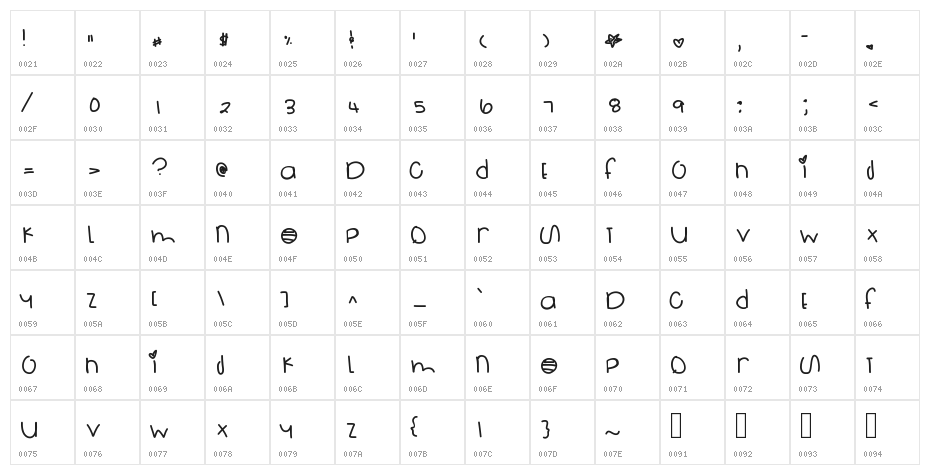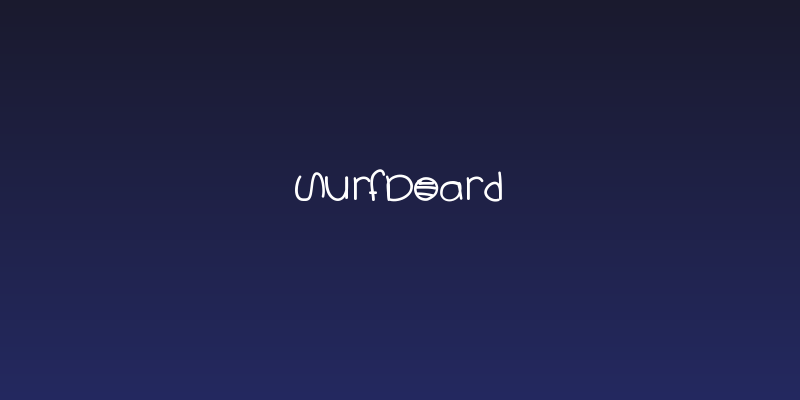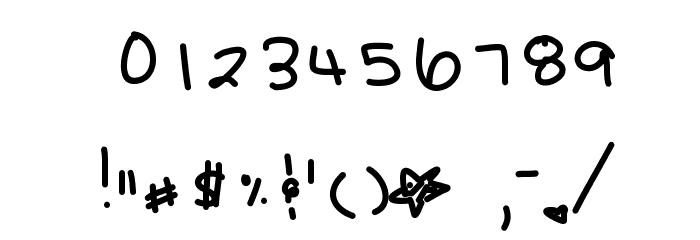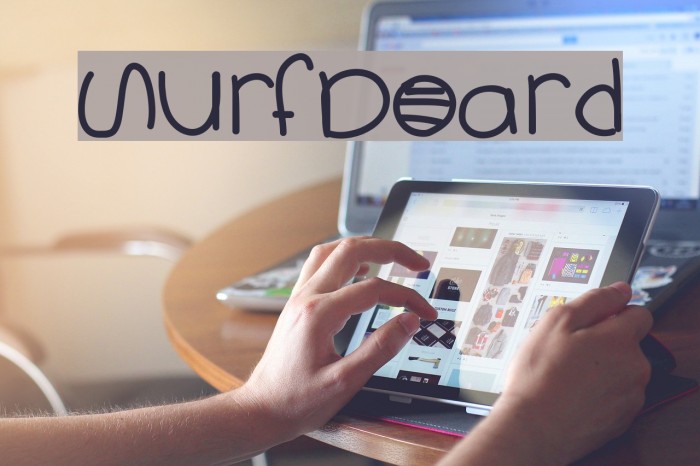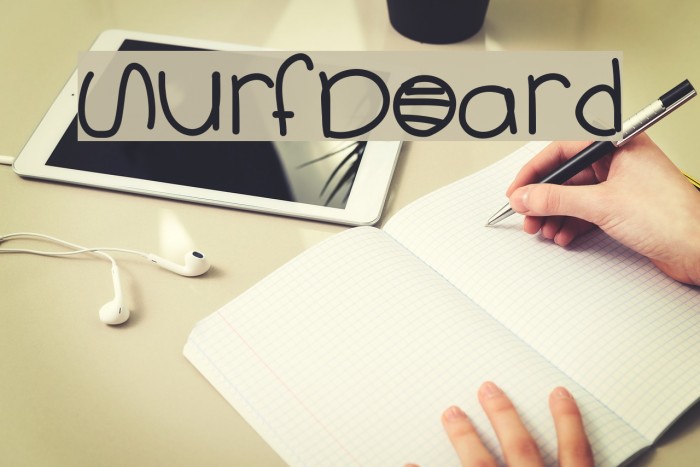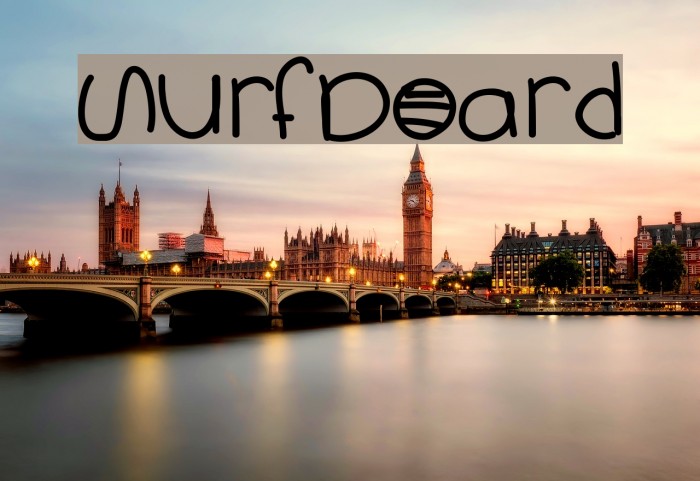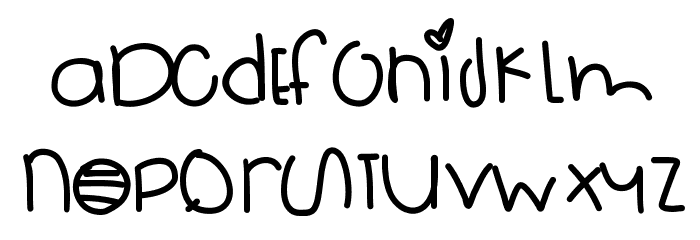
SurfBoard Font
SurfBoard Description
This playful and whimsical font features a handwritten style with unique character designs. The letters are rounded and slightly irregular, giving it a casual and friendly appearance. Some characters, like the 'O' and 'N', incorporate creative elements such as lines and hearts, adding a touch of personality. The numbers and special characters maintain the same playful aesthetic, making the font suitable for informal and fun projects. Its distinct style is eye-catching and ideal for designs that aim to convey a sense of joy and creativity.
| Proposed Projects | Ideal for children's books, greeting cards, playful branding, and casual invitations. |